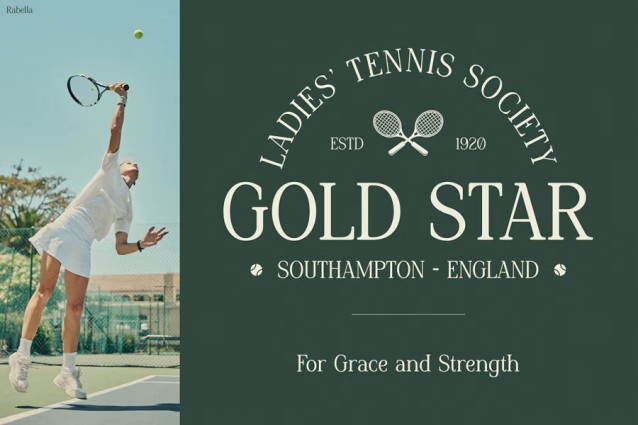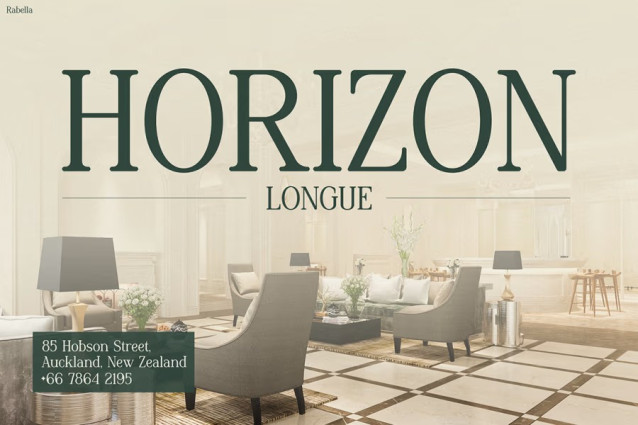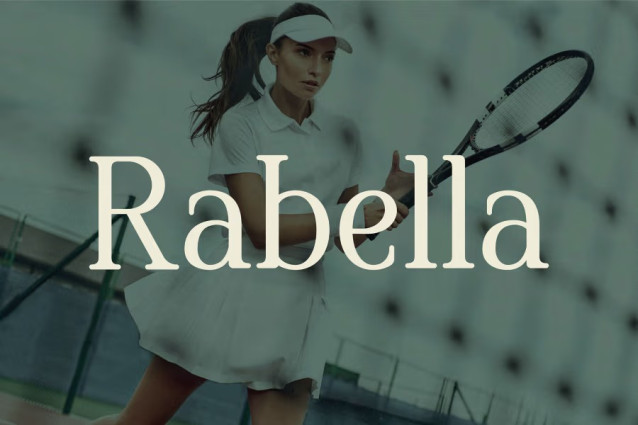
Rabella Font
Rabella Font is where timeless sophistication gracefully meets contemporary style. From the very first glance, this typeface captures attention with its refined contrast and smooth serif lines. Each curve and detail has been thoughtfully crafted to express luxury, harmony, and confidence. Moreover, its design strikes a perfect balance between modern minimalism and classic charm, creating a font that feels both familiar and refreshing.
Unlike ordinary serif fonts, Rabella offers a sense of motion and rhythm that enhances the beauty of your text. Its high legibility makes it ideal for both print and digital uses, ensuring your designs look professional everywhere. Furthermore, Rabella’s versatility allows it to shine across different creative themes—whether in fashion editorials, boutique branding, or social media graphics. Every letter communicates grace, and every word becomes a visual statement.
Who is Instagram Font Rabella Perfect For?
Without a doubt, Instagram Font Rabella is the ultimate choice for designers, brand strategists, entrepreneurs, and content creators seeking refined aesthetics. It fits seamlessly into luxury branding, editorial layouts, hotel and restaurant logos, social media templates, and high-end packaging.
In addition, it’s a wonderful pick for wedding invitations, elegant stationery, or magazine titles that require a balance of sophistication and readability. If you want your brand to exude confidence and timelessness, Rabella will be your perfect creative partner. It beautifully transforms words into design statements that feel both modern and enduring.
Closing — Bring Timeless Elegance to Every Design
In conclusion, Instagram Font Rabella gives your creative work the luxurious finish it deserves. With every curve and serif, it whispers elegance and sophistication. Whether you’re designing for fashion, lifestyle, or luxury brands, this font ensures your message stands tall with confidence and grace. Therefore, don’t just settle for ordinary—choose Rabella and let your designs tell a story of timeless elegance.